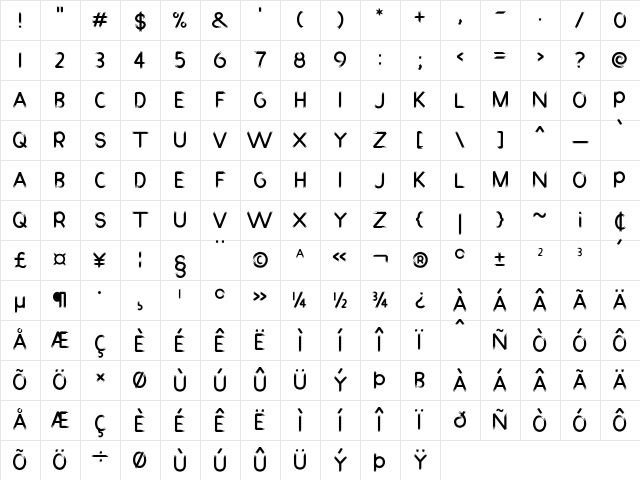
Radora Regular
Radora Family
Design Context for Radora
Radora is a composed and adaptable typeface that performs quietly and consistently across a wide range of design contexts.